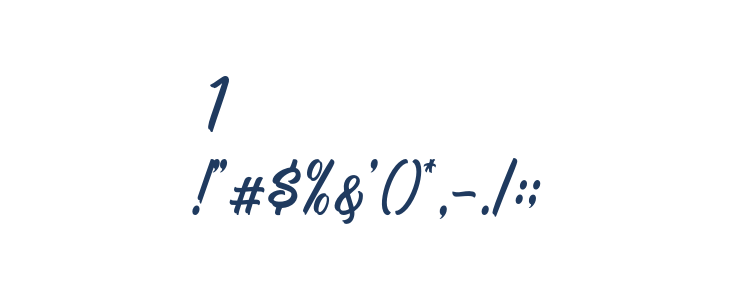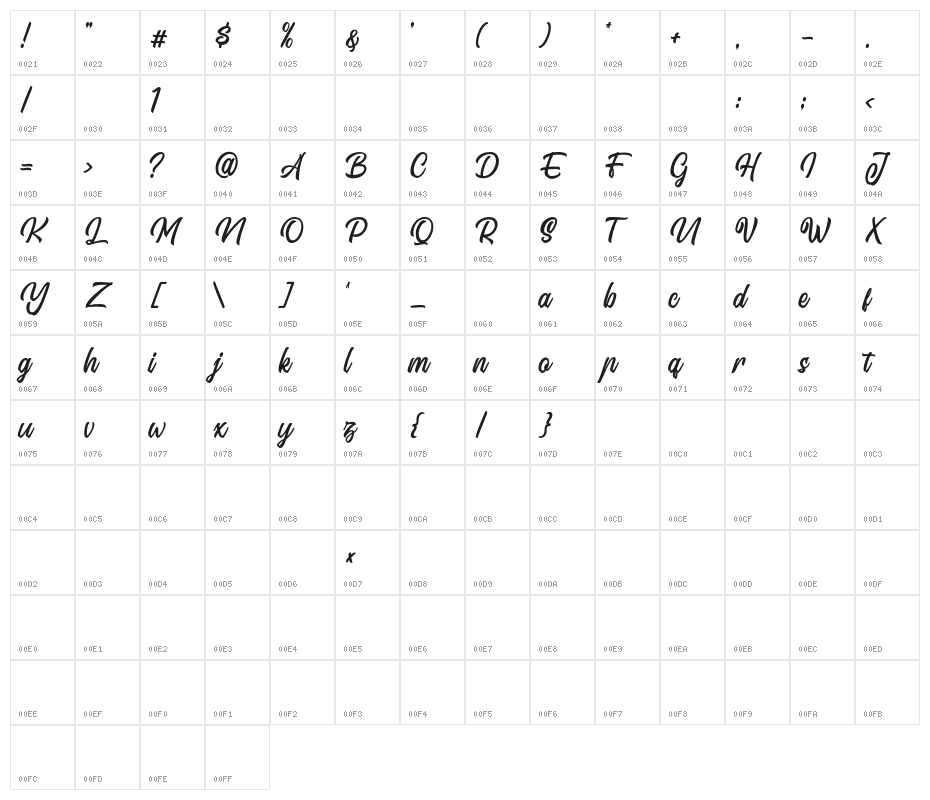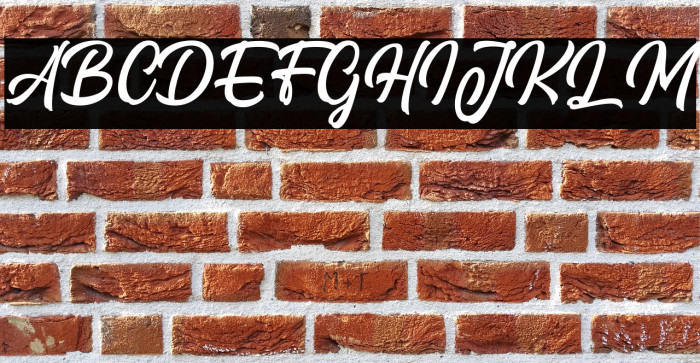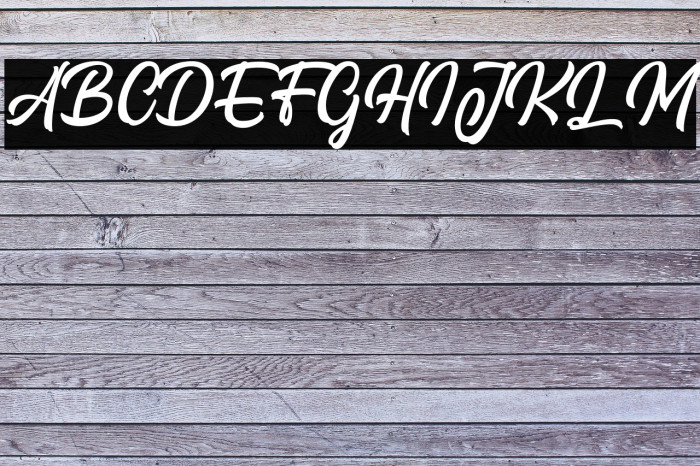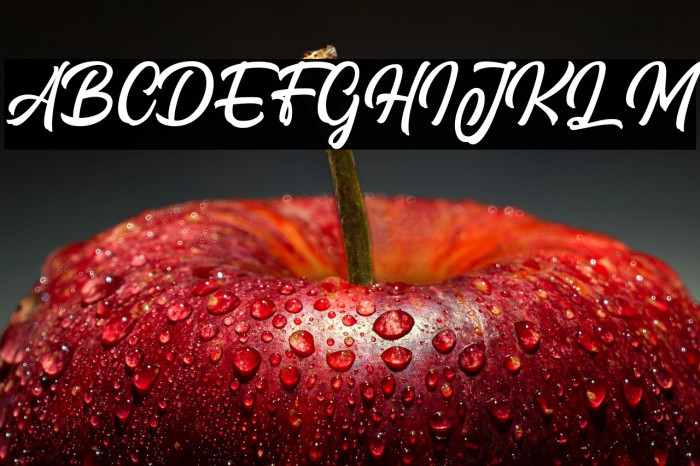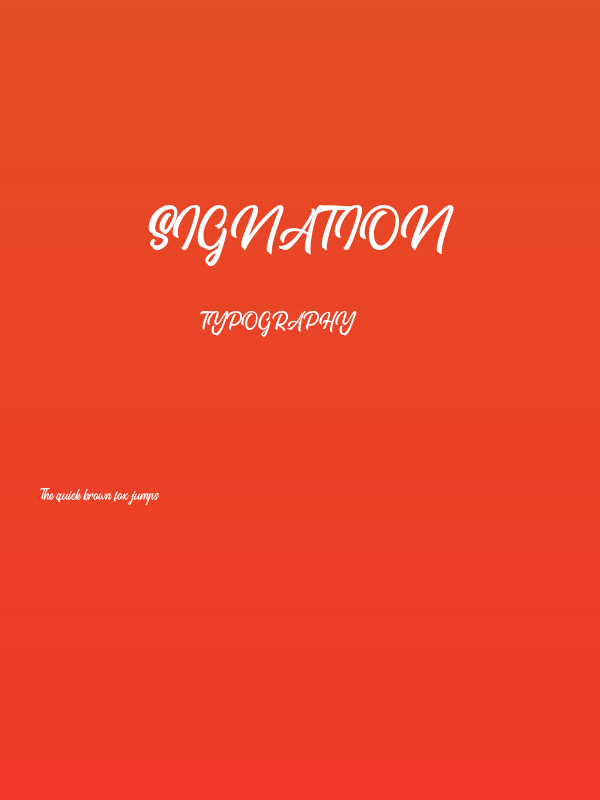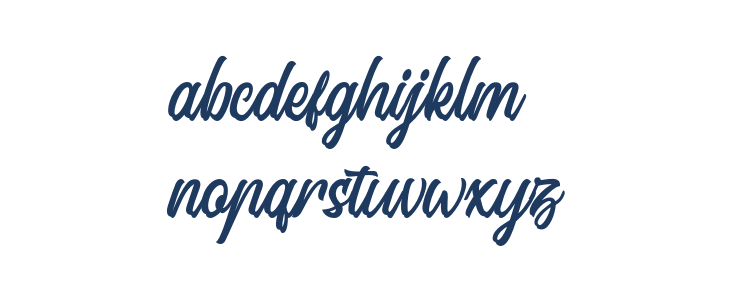
Signation Font
Signation Description
This font features a flowing, cursive style that exudes elegance and sophistication. The characters are connected in a smooth, continuous manner, reminiscent of traditional calligraphy. The uppercase letters are slightly more ornate, with flourishes that add a touch of flair, while the lowercase letters maintain a consistent, fluid form. The numbers and special characters are designed to match the overall aesthetic, ensuring a cohesive look across all text. This font is ideal for projects that require a personal, handwritten touch, such as invitations, greeting cards, or branding materials.
| Overall Style | Elegant |
| Use Case | Logos, Invitations, Greeting Cards |
| Proposed Projects | Ideal for wedding invitations, greeting cards, personal branding, and elegant logos. |